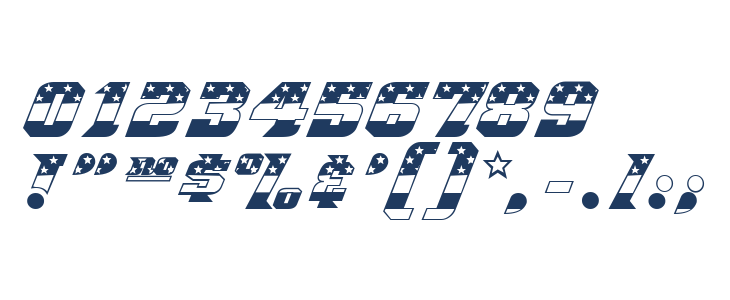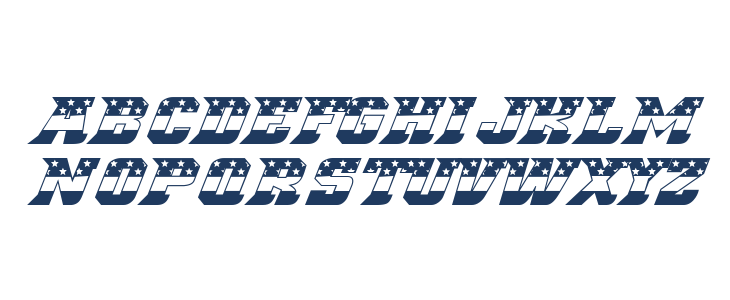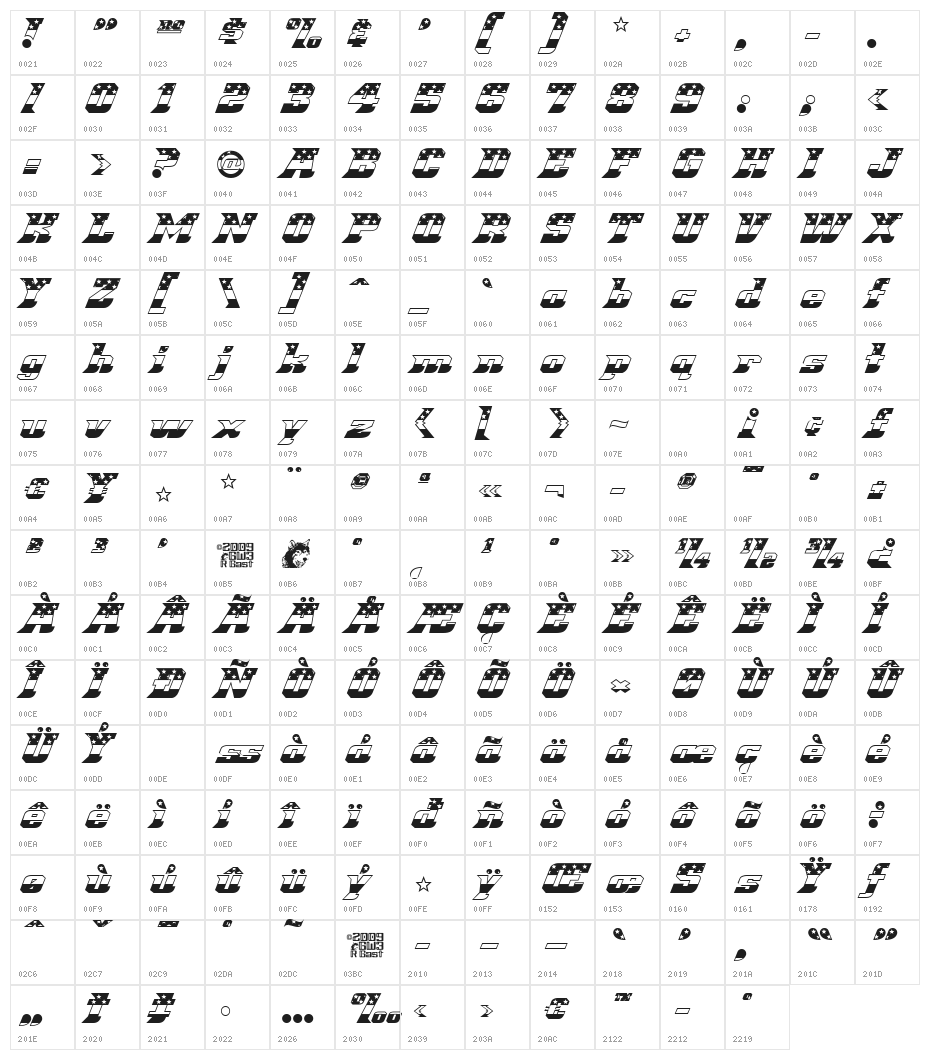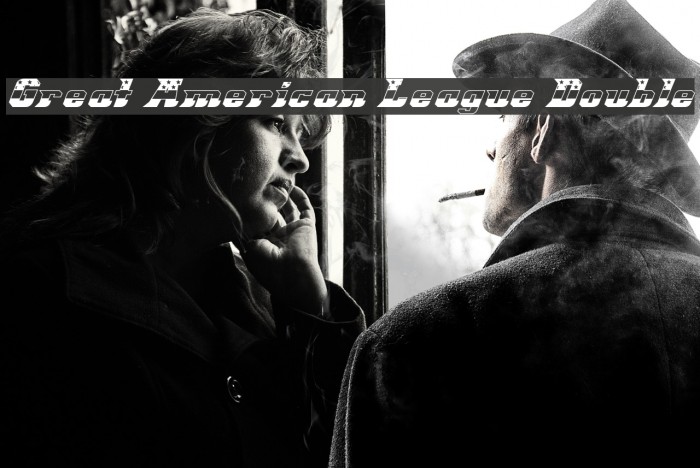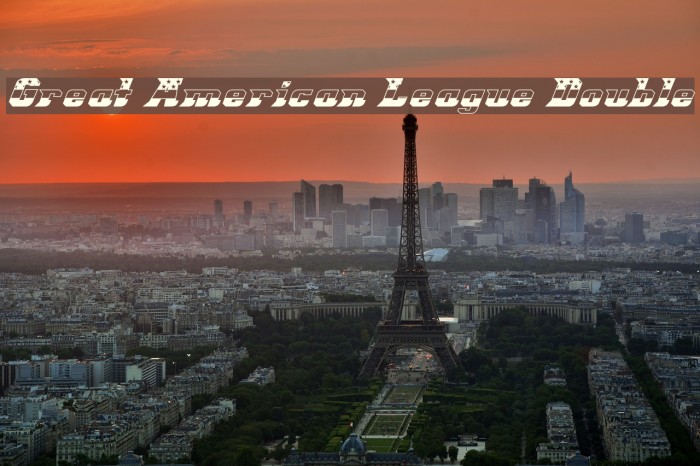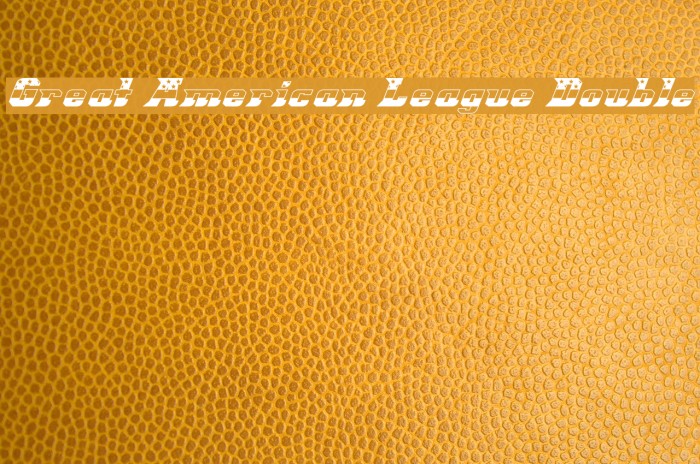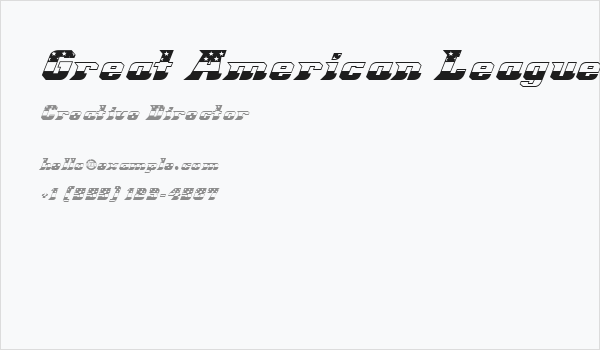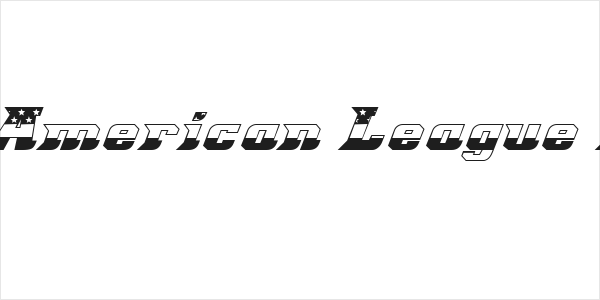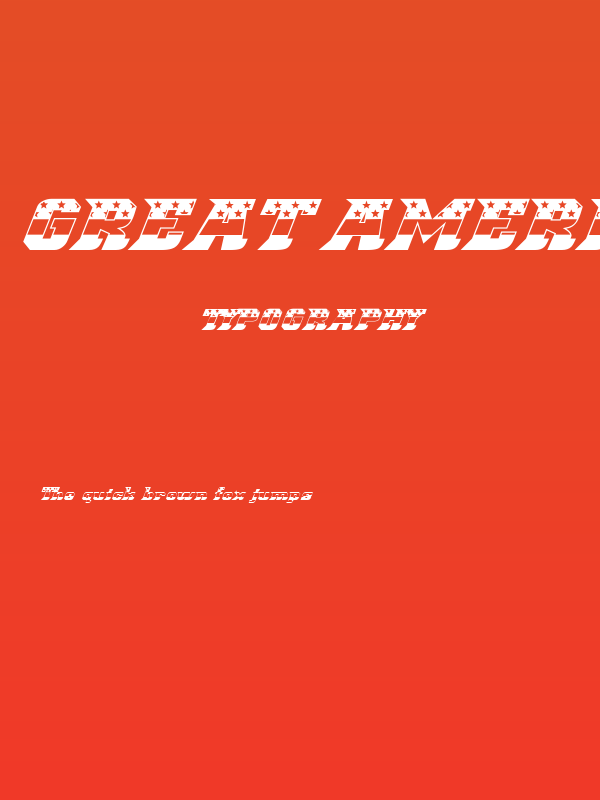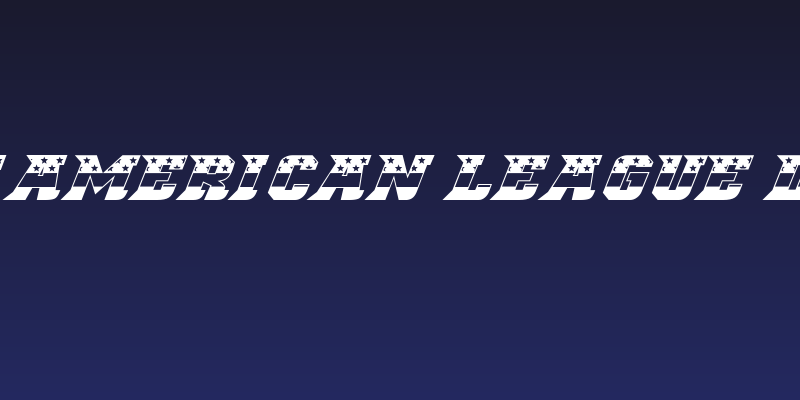
Great American League Double Font
Great American League Double Description
This font features a bold, decorative style with a patriotic theme, incorporating stars and stripes reminiscent of the American flag. The uppercase letters are filled with stars, while the lowercase letters maintain a sleek, italicized form. The numbers and special characters continue the theme, providing a cohesive look across all characters. The font's design is both eye-catching and thematic, making it ideal for projects that require a strong, nationalistic aesthetic. Its bold strokes and unique patterning make it stand out, while the italic slant adds a dynamic feel.
| Proposed Projects | Ideal for patriotic event posters, themed merchandise, or any project requiring a strong American identity. |